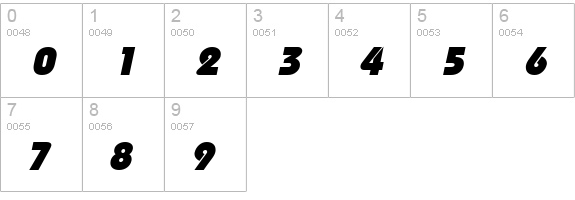
BordeauxBlack Italic Font Details
BordeauxBlack Italic is a distinctive, italic variant in the BordeauxBlack typeface family \xE2\x80\x94 well suited to design and typography projects.
BordeauxBlack Italic is a sleek and modern typeface designed to make a bold statement in any design project. With its elegant curves and sharp angles, this font exudes sophistication and style. The italicized version adds a touch of flair and creativity to your text, making it perfect for headings, logos, and marketing materials. Best of all, BordeauxBlack Italic is available for free download at FontsMarket.com. Whether you're a professional designer or just looking to spice up your personal projects, this font is a versatile choice that will elevate your work to the next level. Don't miss out on this opportunity to add a touch of class to your designs with BordeauxBlack Italic.